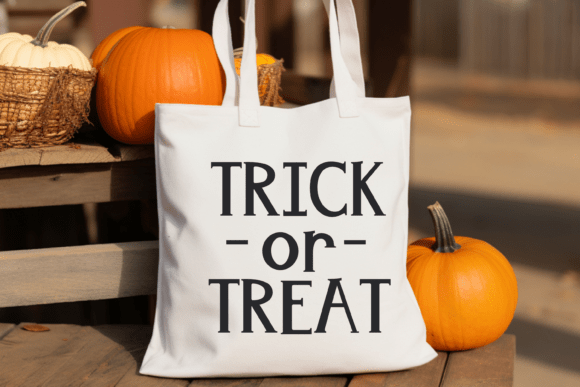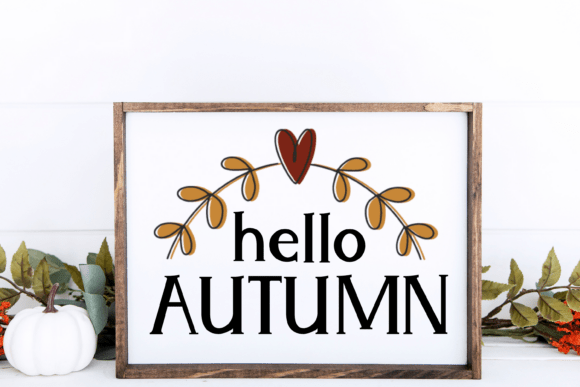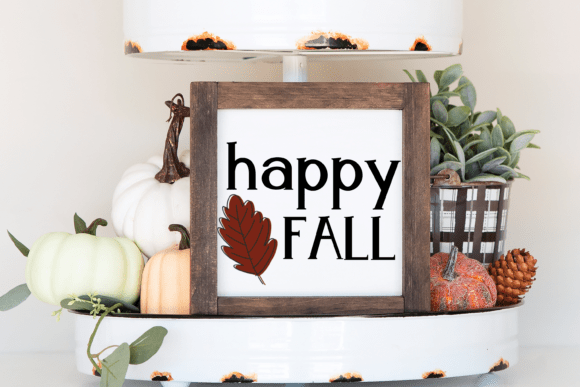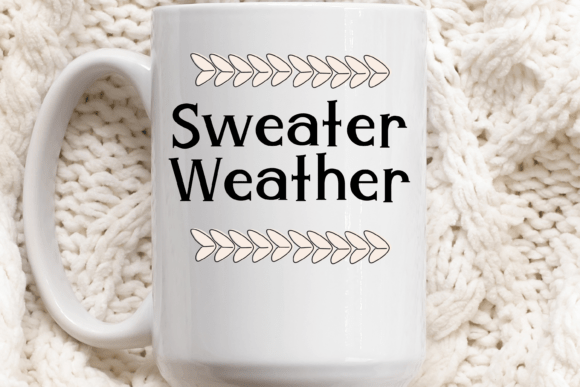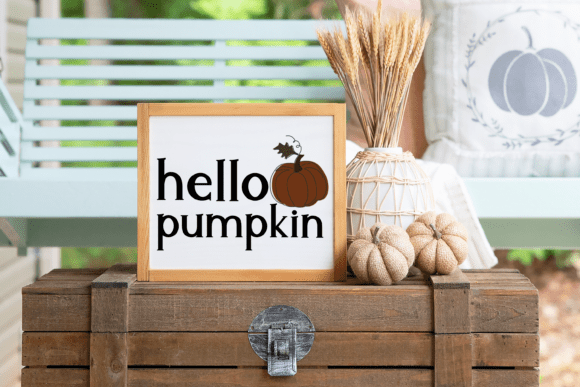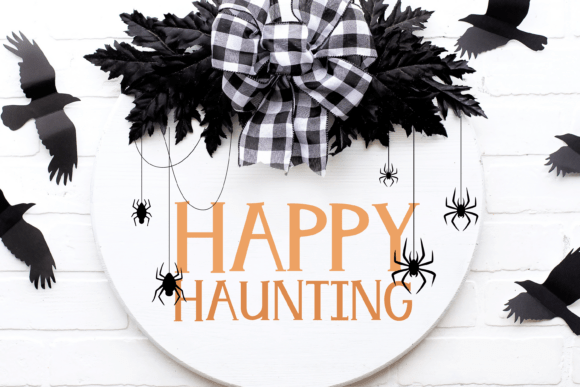
Introducing Ghost Writer: The Ultimate Halloween Handwritten Font
Are you ready to add a touch of spooky magic to your Halloween projects? Look no further than Ghost Writer, our wicked cute Halloween Handwritten font! This meticulously crafted font is perfect for designers and crafters who want to create eye-catching and eerie designs that capture the essence of the holiday.
A Playful yet Eerie Vibe
Ghost Writer is more than just a font – it’s an experience. Its playful yet eerie vibe is sure to transport your audience to a world of spooky fun and excitement. Whether you’re creating invitations, banners, or decorations, this font will add a touch of magic to your designs. Imagine the look on your friends’ and family members’ faces when they see your Halloween-themed crafts come to life with Ghost Writer!
Ghost Writer is a dream come true for designers and crafters who want to create unique and eye-catching Halloween-themed projects. Its fun handwriting style is sure to make your projects stand out from the crowd. Whether you’re a seasoned designer or a crafter looking for a new font to add to your collection, Ghost Writer is the perfect choice.
What Sets Ghost Writer Apart
So, what sets Ghost Writer apart from other Halloween fonts? Here are just a few features that make it a standout:
- Handwritten style: Ghost Writer has a unique, handwritten style that’s perfect for creating personal and spooky designs.
- Playful yet eerie vibe: This font captures the essence of Halloween with its playful yet eerie vibe, making it perfect for a wide range of projects.
Get Creative with Ghost Writer
Now that you’ve met Ghost Writer, it’s time to get creative! Here are just a few ideas to get you started:
- Halloween invitations: Create spooky and fun invitations that will set the tone for your Halloween party.
- Banners and signs: Use Ghost Writer to create eye-catching banners and signs that will add a touch of magic to your Halloween decorations.
- Decorations: Create intricate decorations, such as garlands and cards, that will add a personal touch to your Halloween celebrations.
Tips and Tricks for Using Ghost Writer
Here are a few tips and tricks to help you get the most out of Ghost Writer:
- Experiment with different colors: Try pairing Ghost Writer with different colors to create a unique and eye-catching design.
- Play with font sizes: Experiment with different font sizes to create visual interest and add depth to your design.
- Add embellishments: Consider adding embellishments, such as stickers or die-cuts, to add an extra touch of magic to your design.
In conclusion, Ghost Writer is the perfect Halloween Handwritten font for designers and crafters who want to add a touch of spooky magic to their projects. Its playful yet eerie vibe, compatibility with Cricut, and versatility make it a standout font that’s sure to make your projects stand out. So why wait? Get creative with Ghost Writer today and let your imagination run wild this Halloween season!